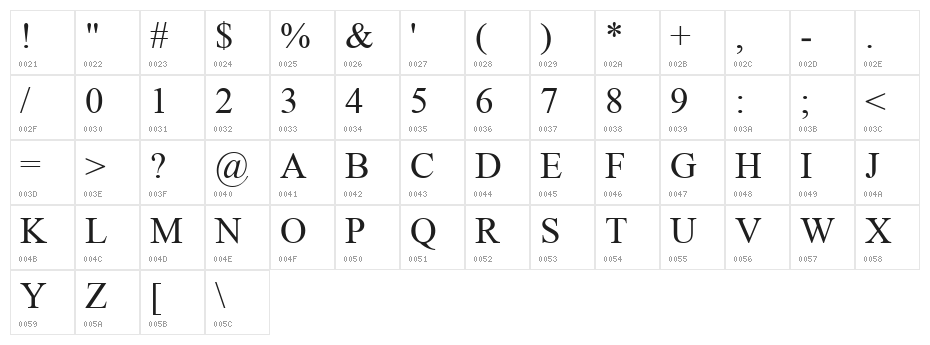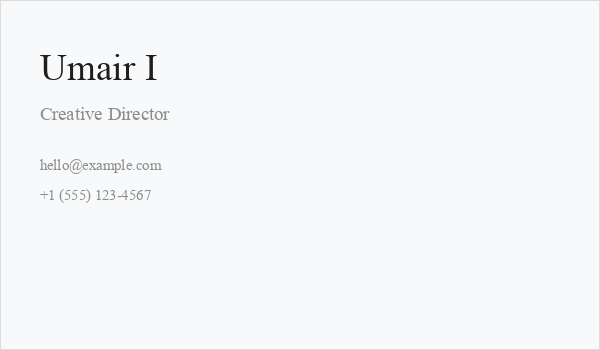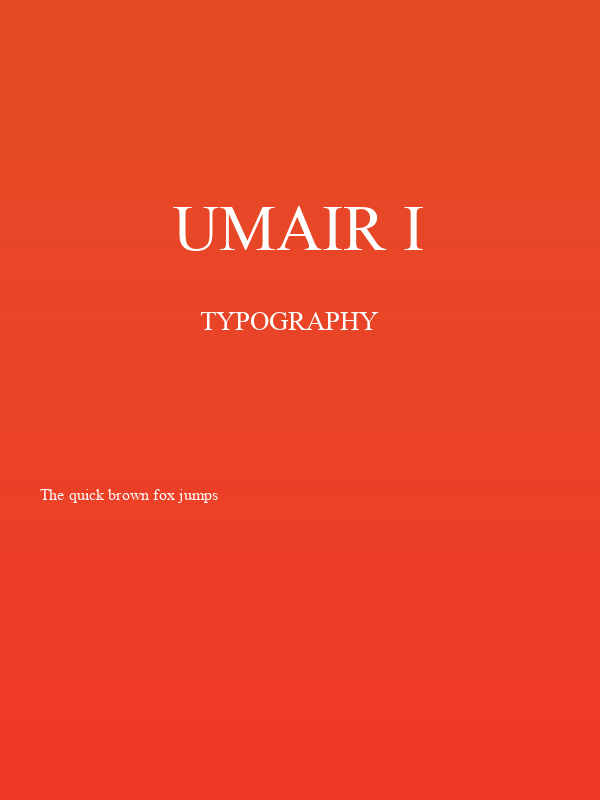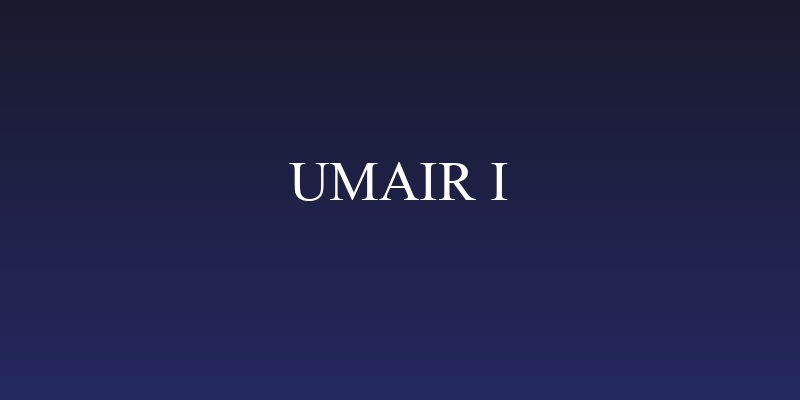
Umair I Font
Umair I Description
This font features a classic serif style with elegant, sharp serifs and a refined structure. The uppercase letters are bold and commanding, while the lowercase letters maintain a balanced and harmonious appearance. The numerals are clear and distinct, making them easily readable. Special characters are designed with the same attention to detail, ensuring consistency across all glyphs. The overall design exudes a sense of tradition and sophistication, making it suitable for formal and professional applications.
Overall StyleClassic
Proposed ProjectsIdeal for book covers, editorial design, formal invitations, and branding projects that require a touch of elegance and tradition.